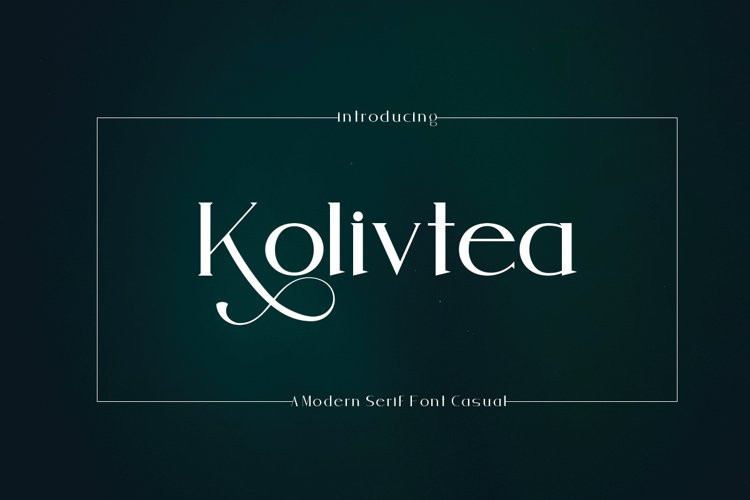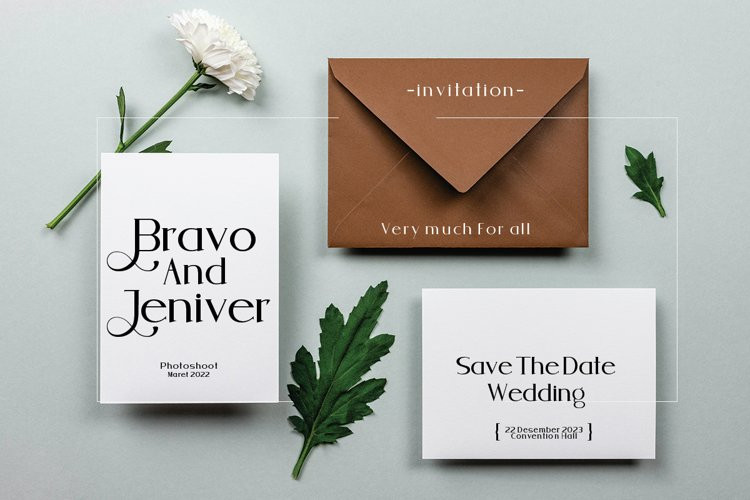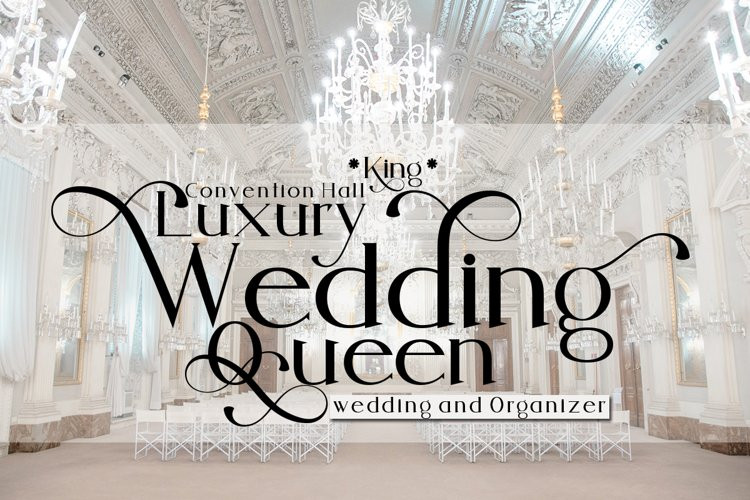
Kolivtea Font
Kolivtea Fontkolivtea is a font with an elegant and luxurious appearance, looks simple but still maintains the aesthetic design, and there are several alternatives that you can use, and this font is also PUA coded which means you can easily access all glyphs, very suitable for design, magazines , invitation boards, letters, social media posts, titles, brochures, and much more